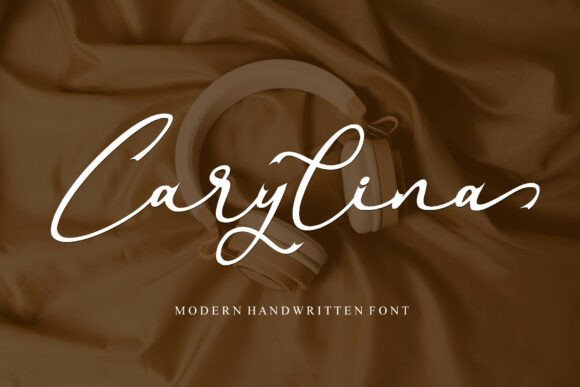
Introduction to Carylina Font
Immerse yourself in the artisanal charm of Carylina, an exquisitely designed handwritten font.
Guaranteed to embellish any creative project, Carylina is the ideal typography solution for crafting captivating logos, romantic wedding invitations, and beyond Its refined strokes and distinct character make it a vital addition to any design toolkit.
Key Features of Carylina Font